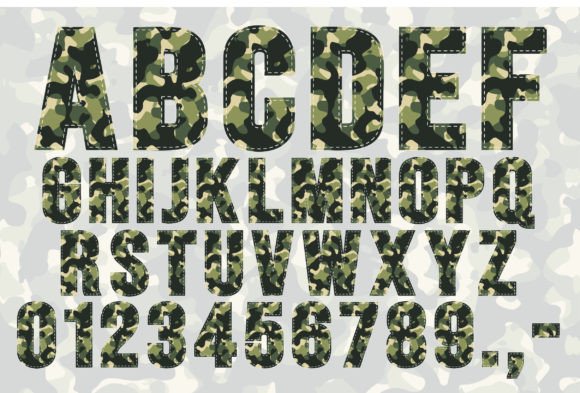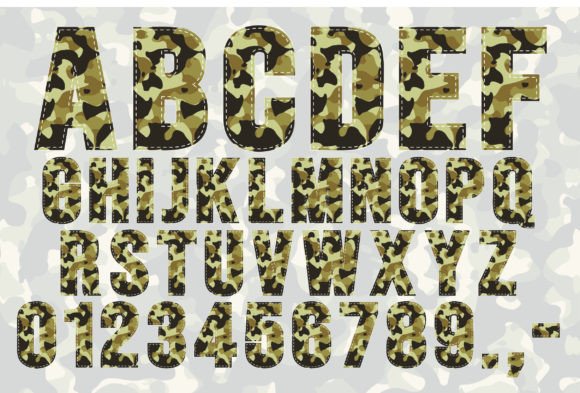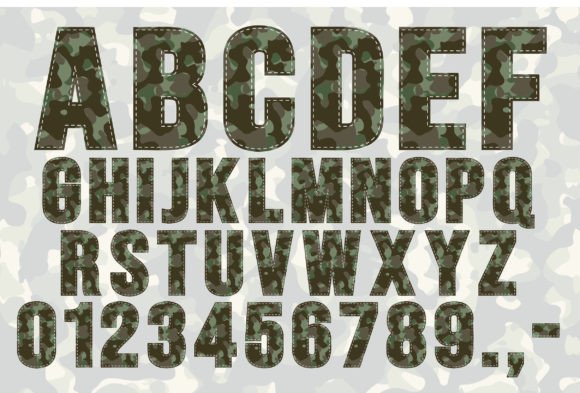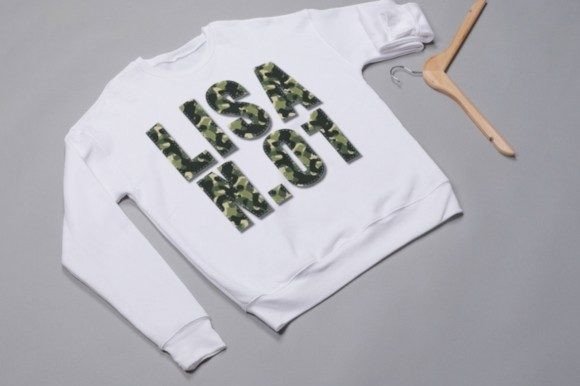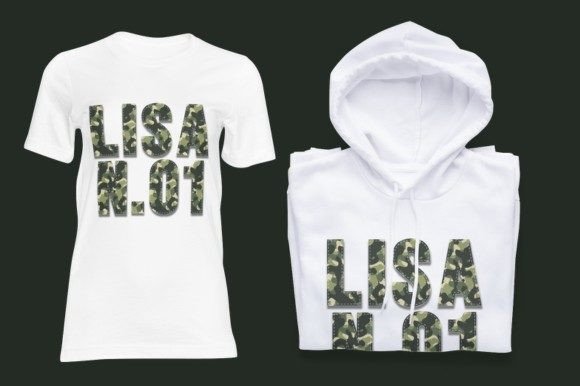
Unleash the Power of Camouflage: A Unique and Versatile Font for Designers
Are you tired of using the same old fonts in your design projects? Look no further than Camouflage, a captivating color font that is inspired by military camouflage designs. This exceptional font boasts four distinctive patterns, each featuring a unique blend of earthy tones and intricate textures that are sure to make your typography projects stand out.
What is Camouflage Font?
Camouflage is a color font that is designed to bring a touch of rugged elegance to your designs. With its military-inspired patterns, this font is perfect for designers who want to add a unique and eye-catching element to their work. The font features four different patterns, each with its own distinct character and texture. Whether you’re working on a branding project, a poster, or a website, Camouflage is a versatile font that can be used in a variety of creative ways.
Key Features of Camouflage Font
- Four Distinctive Patterns: Camouflage font comes with four unique patterns, each inspired by military camouflage designs. These patterns feature a blend of earthy tones and intricate textures that give your typography a rugged and elegant look.
- Earthy Tones: The font features a range of earthy tones, including greens, browns, and tans, that are reminiscent of military camouflage. These tones are perfect for creating designs that are inspired by nature and the outdoors.
- Intricate Textures: Each pattern in the Camouflage font features intricate textures that add depth and interest to your designs. These textures give your typography a tactile, organic feel that is sure to grab attention.
- Versatility: Camouflage is a versatile font that can be used in a variety of design projects, from branding and posters to websites and more.
Why Designers Love Camouflage Font
Designers love Camouflage font for its unique and eye-catching appearance. The font’s military-inspired patterns and earthy tones give it a rugged and elegant look that is perfect for designers who want to add a touch of sophistication to their work. Additionally, the font’s versatility makes it easy to use in a variety of design projects, from bold and colorful posters to more subtle and understated branding projects.
How to Use Camouflage Font in Your Designs
- Pair with a Simple Background: To really make your typography pop, pair Camouflage font with a simple background. A plain white or light-colored background will help your text stand out and prevent it from getting lost in the design.
- Experiment with Different Patterns: Camouflage font comes with four different patterns, so don’t be afraid to experiment and find the one that works best for your design. You can also combine different patterns to create a unique and eye-catching look.
- Use it for Headlines and Titles: Camouflage font is perfect for headlines and titles, where its bold and eye-catching appearance can really make an impact. Use it to add a touch of rugged elegance to your designs and make your text stand out.
Camouflage font is a unique and versatile font that is perfect for designers who want to add a touch of rugged elegance to their work. With its four distinctive patterns, earthy tones, and intricate textures, this font is sure to make your typography projects stand out. Whether you’re working on a branding project, a poster, or a website, Camouflage is a must-have font that can help you create eye-catching and memorable designs.